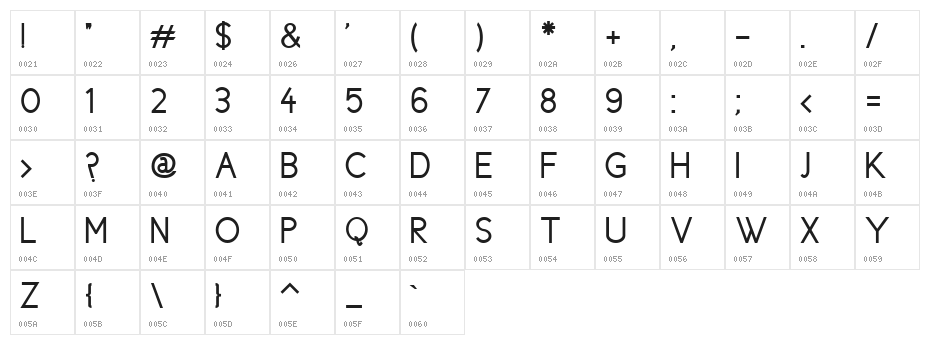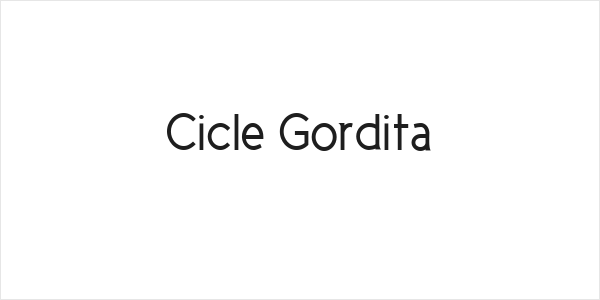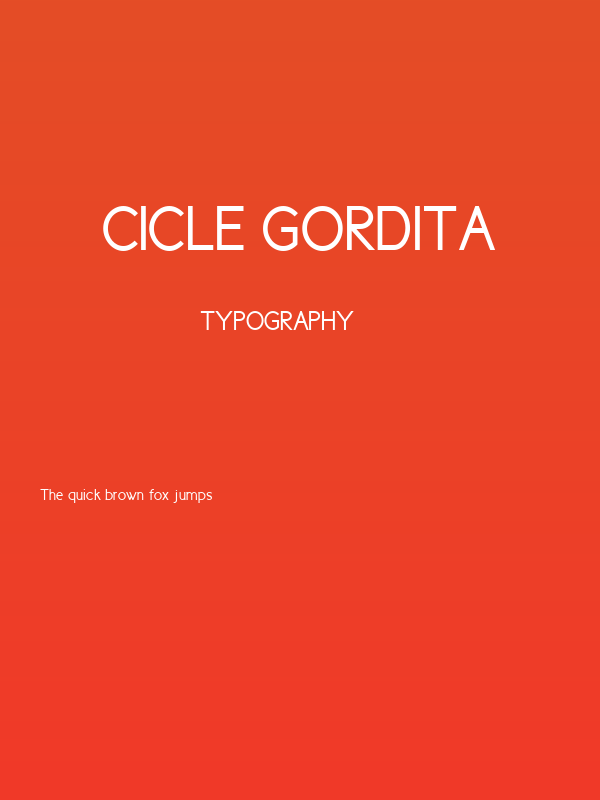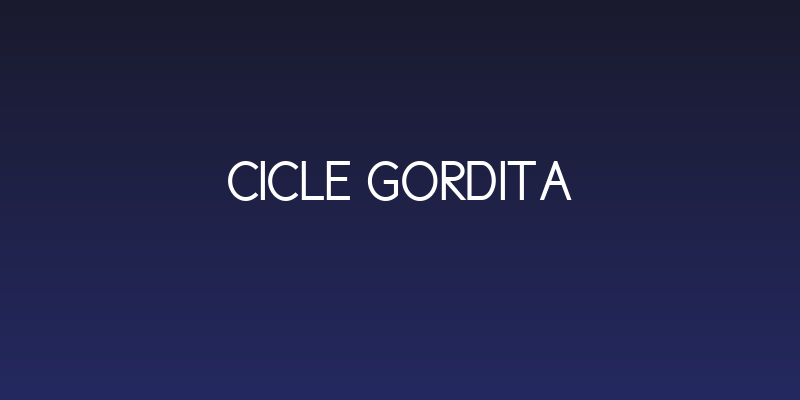
Cicle Gordita Font
Cicle Gordita Description
This font features a clean and modern sans-serif design with smooth, rounded edges that give it a friendly and approachable appearance. The characters are well-proportioned, with a consistent stroke width that maintains readability across various sizes. The uppercase letters are slightly taller than the lowercase, providing a balanced look. The numerals are clear and distinct, making them easily legible. Special characters are designed with the same attention to detail, ensuring uniformity throughout the typeface. Its simplicity and clarity make it versatile for a wide range of applications.